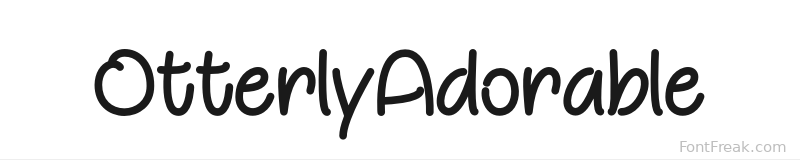
Otterly Adorable
About Otterly Adorable
The Otterly Adorable font by Misti Hammers is a charming handwritten typeface that captures a playful and whimsical spirit. This display font features a unique, casual style characterized by its rounded strokes and friendly curves, making it perfect for conveying warmth and approachability. The stroke weight is consistent, providing a balanced look without excessive contrast, while the generous spacing between letters enhances readability. Additionally, the font’s slightly irregular shapes add a touch of personality, making it feel both modern and inviting.
With its delightful aesthetic, Otterly Adorable excels in a variety of specific use cases. It is an excellent choice for wedding invitations, where its sweet charm can set a romantic tone. The font works wonderfully for children’s book covers or educational materials, making learning feel fun and engaging. It also shines in branding for cafes or bakeries, where a friendly and inviting image is essential. Furthermore, it can be effectively used in social media graphics and content, appealing to content creators looking to add a lighthearted touch to their posts.
Targeting graphic designers, small business owners, and content creators, Otterly Adorable provides versatility and ease of use. It is a font that allows users to express creativity without sacrificing legibility, making it a valuable addition to any designer’s toolkit.
What sets the Otterly Adorable font apart is its ability to evoke joy and playfulness while remaining highly functional. By choosing this font, you are not only opting for a visually appealing typeface but also embracing a style that resonates with audiences of all ages. Don’t miss out on the opportunity to enhance your projects with the Otterly Adorable font free download, bringing a touch of whimsy to your design work.